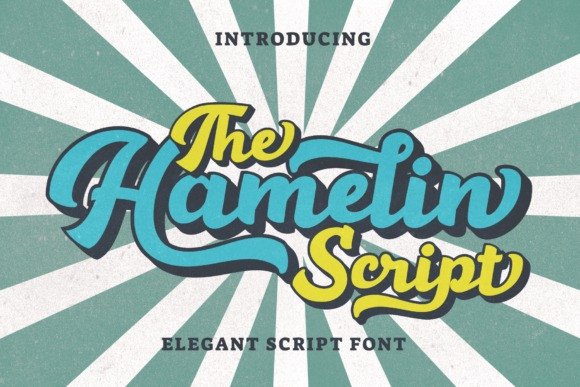
Hamelin Script Font
Introduce Hamelin Font, is a strong and unique handwritten font that evokes the look & feel of vintage advertising fonts.
Hamelin Font is perfect for many different project such as logos & branding, headline, invitation, stationery, wedding designs, social media posts, advertisements, product packaging, product designs, label, photography, watermark, special events or anything.